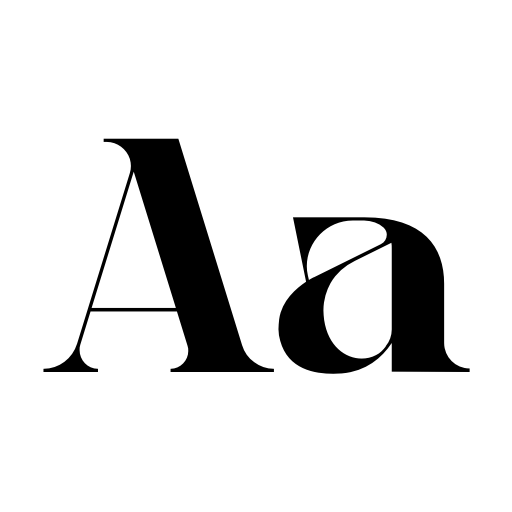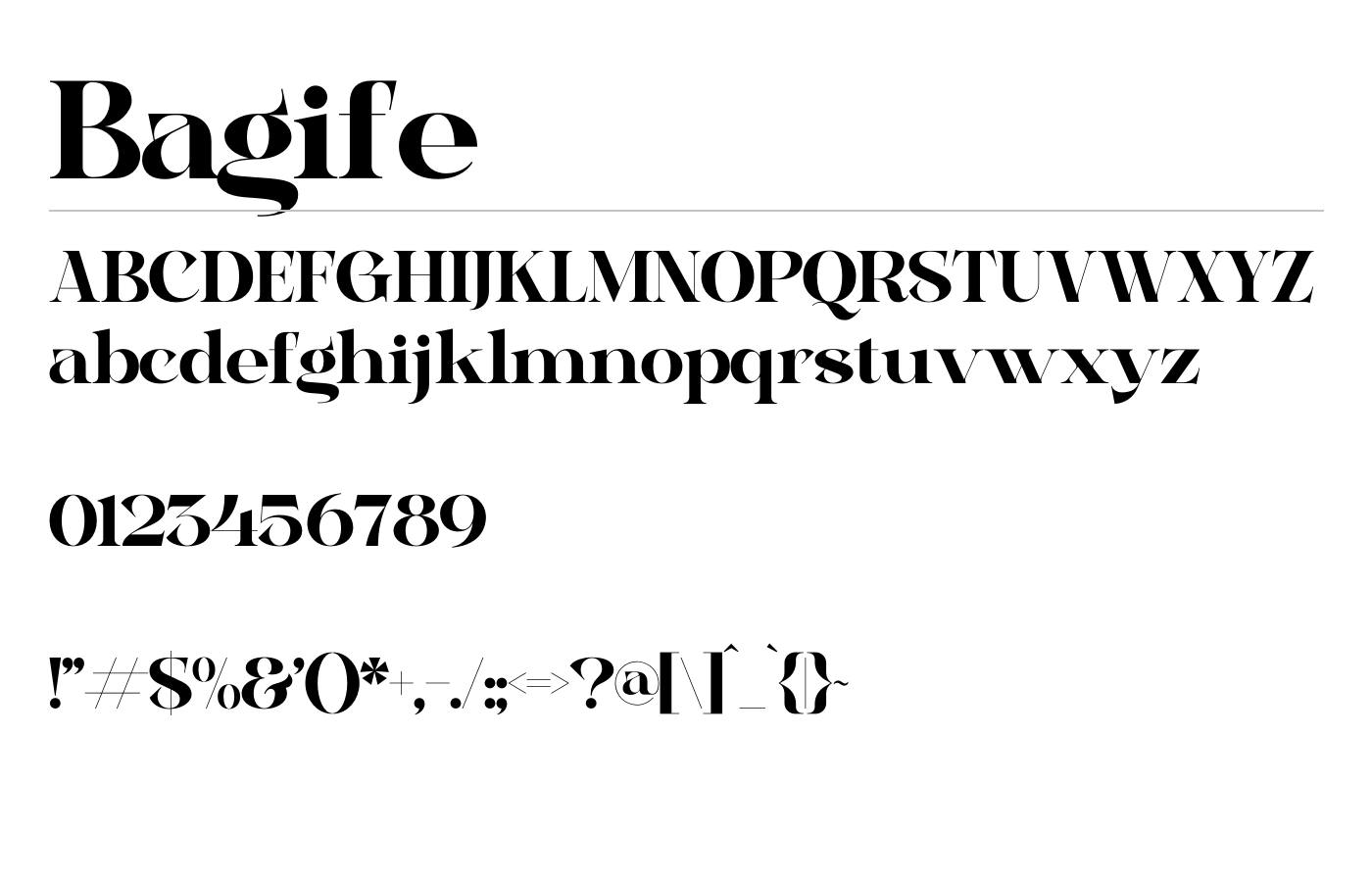
Bagife is a striking serif font with high contrast between thick and thin strokes, featuring elegant, sharp serifs and distinctive letterforms that combine both classic and modern styles. Its medium width and tall x-height create a strong presence, making it perfect for upscale branding, editorial headlines, and sophisticated packaging where a sense of luxury and refinement is desired. This font excels in designs that require a bold yet stylish look that commands attention while maintaining readability.
Bagife Font
About Bagife Font